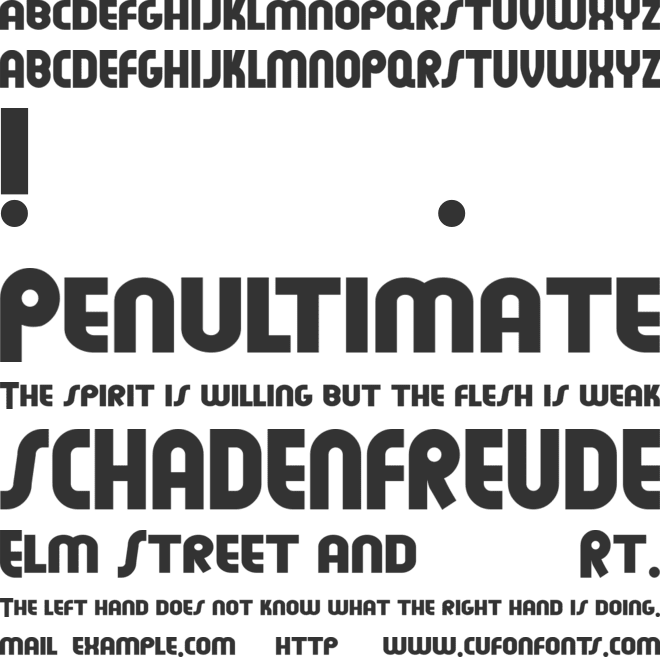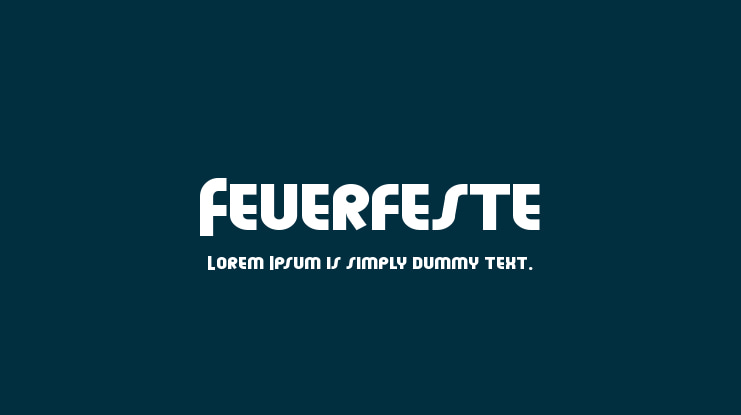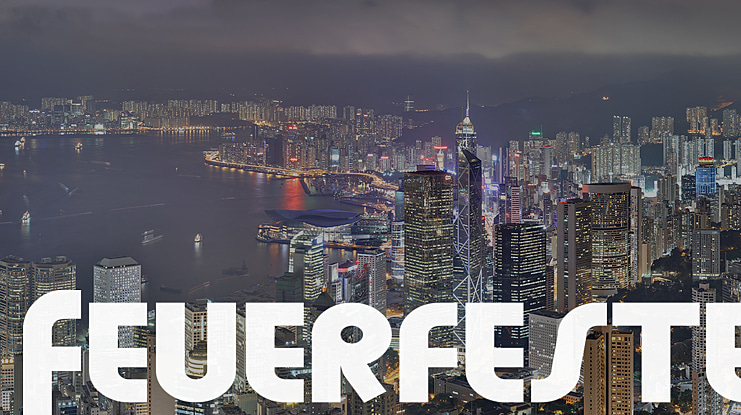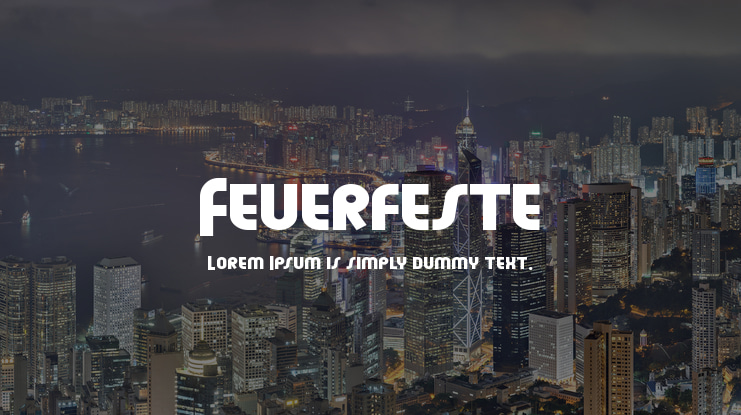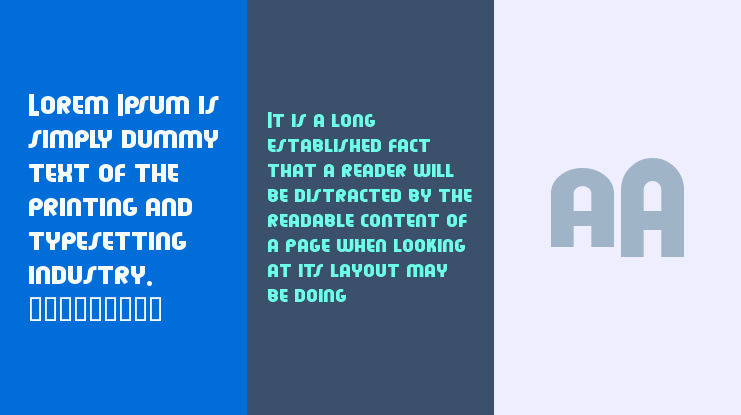
Feuerfeste Font Family
Based on the text from a german coffee box. Later I noticed that there already was a font looking like this, but I don't know the name of it
Based on the text from a german coffee box. Later I noticed that there already was a font looking like this, but I don't know the name of it. Please tell me at